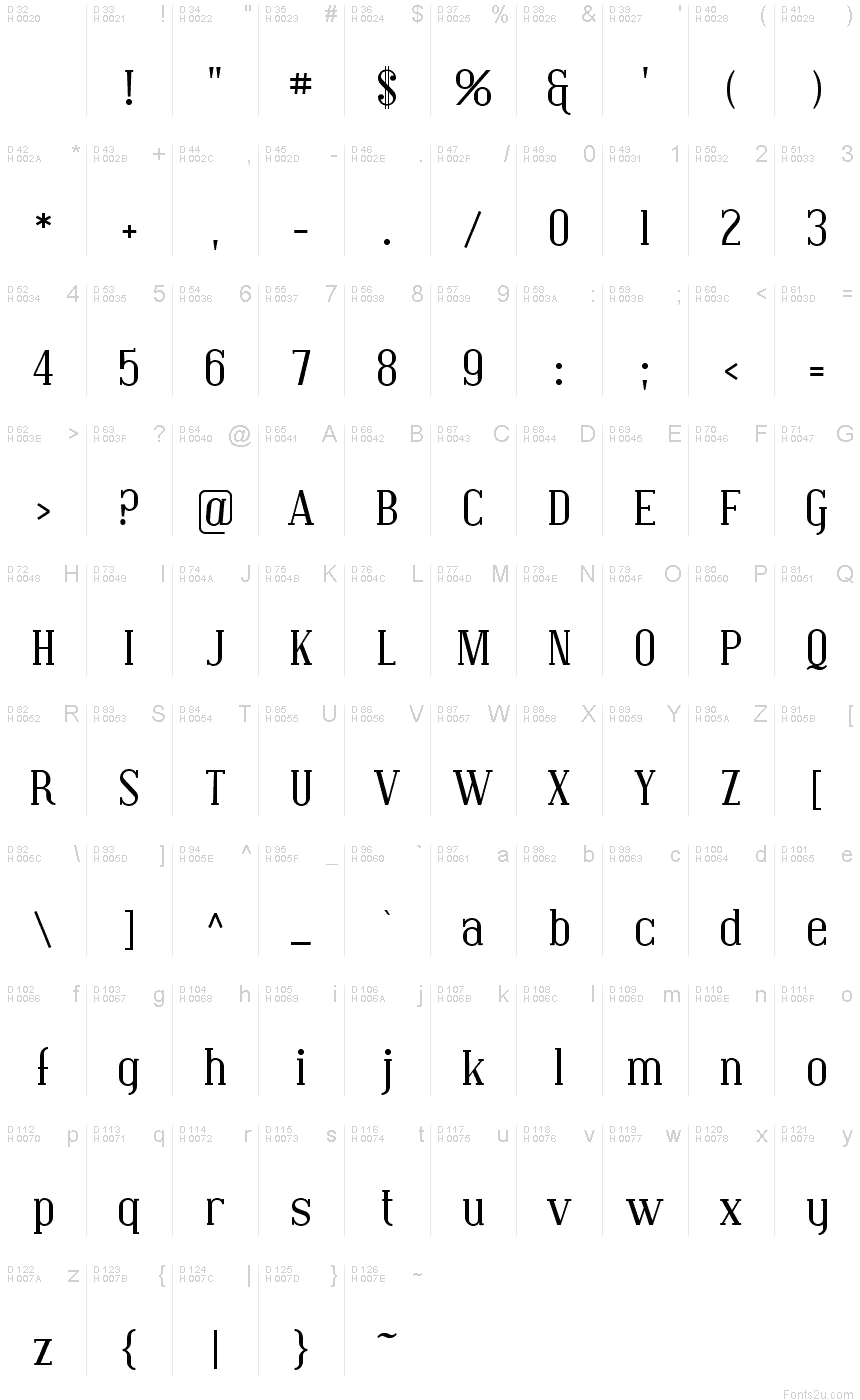
SF Covington by Derek Vogelpohl of ShyFoundry is a free high-contrast serif with exceptionally tall, narrow letterforms and a formal, fashion-minded air. Fine hairlines meet broad vertical strokes in long curves that give the lettering an elegant but slightly theatrical silhouette.
Publishing is an especially convincing setting for it, from magazine mastheads and book covers to refined event posters. On perfume packaging or boutique signage, its stretched proportions can make the lettering function almost like a row of architectural columns rather than ordinary text.
SF Covington
ShyFoundry
Derek Vogelpohl